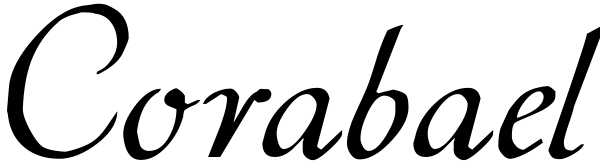
Corabael
Corabael is a classic, elegant script font. The lines of the upper and lower case characters are clean and clear, and it retains some of the characteristics of hand-written script without becoming too fanciful or irregular.